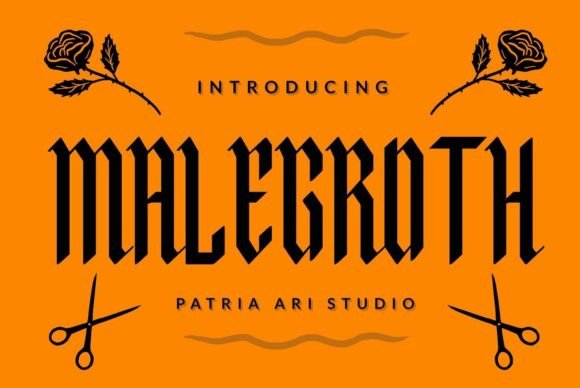
A captivating display of artistry, Malegroth is a striking blackletter font that adds a touch of elegance to any project. With its graceful curves and strong, confident strokes, Malegroth commands attention wherever it appears.
Step into a world of creative expression as you explore the limitless possibilities of Malegroth. Its bold, commanding presence is perfect for urban-style designs, birthday cards infused with playfulness, and personal branding that exudes confidence. Whether you're crafting tattoo-related logos or simply seeking to add a touch of distinction to your designs, Malegroth is the perfect choice.
But what truly sets Malegroth apart is its versatility. Effortlessly blending modernity and nostalgia, it effortlessly elevates both digital and print projects. Its ability to seamlessly adapt to a wide range of design styles makes it a must-have for any creative toolkit.
Embrace the allure of Malegroth and let your creativity soar. Its captivating form will leave a lasting impression, ensuring that your designs stand out from the crowd. Join the ranks of those who have discovered the power of Malegroth and let your imagination run wild.